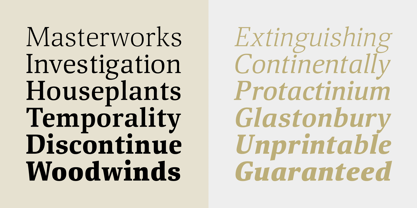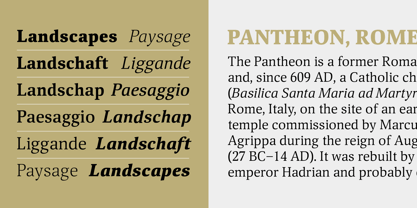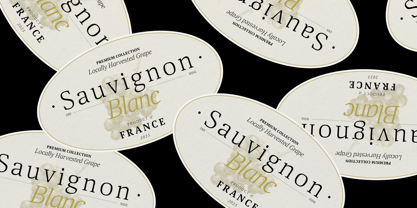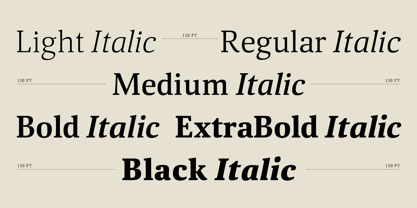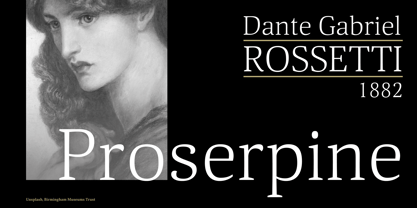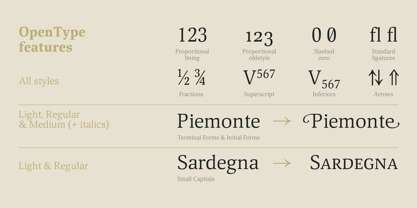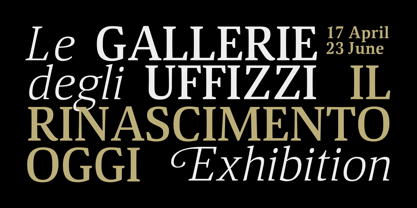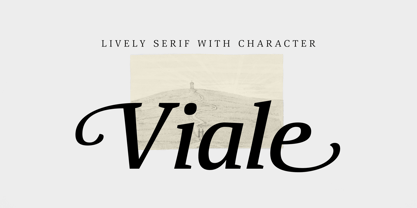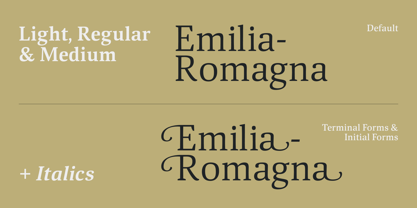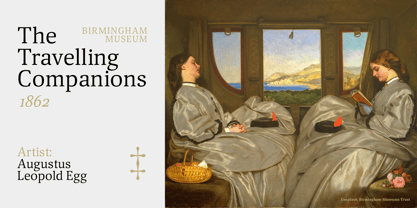
Viale
by ParaType
The Viale Font Family was designed by Natalia Vasilyeva and published by ParaType. Viale contains 12 styles and family package options. More about this family
Viale is a text serif with a slightly informal character and subtle decorative details. The typeface features gently concave vertical strokes that give the letterforms a sense of elasticity and liveliness, paired with crisp, well-defined serifs without rounded transitions. There’s also a subtle reference to pen-written forms — reinforced by expressive entry and exit strokes that bring a hint of calligraphic flavor to the design. Viale works especially well in headlines, title pages, posters, and short texts set in larger sizes, as well as in decorative compositions for branding and packaging. Across different weights, the typeface includes a rich set of OpenType features — some of which can significantly transform its visual appearance. Depending on the style, you can switch initial and final forms, enable ligatures or small caps, use oldstyle figures, or activate a slashed zero. Family details 12 styles: 6 upright and 6 italic 725–1300 glyphs per style (depending on OpenType feature sets) OpenType features: onum, calt, c2sc, smcp, pnum, frac, lod, liga, kern, init, fina, zero
Designers: Natalia Vasilyeva
Foundry: ParaType